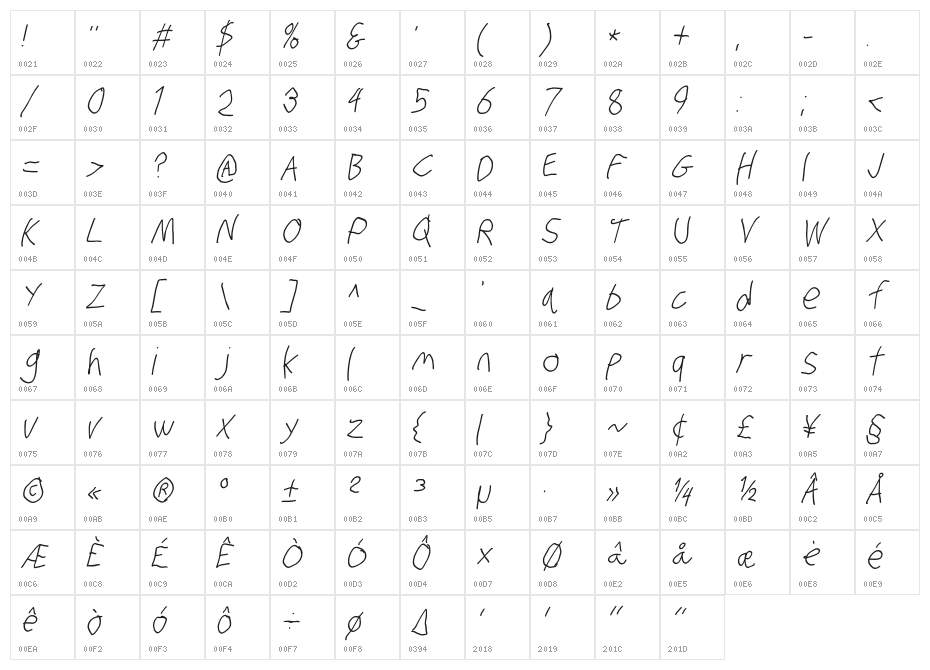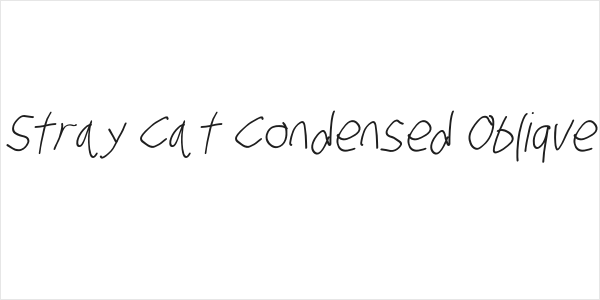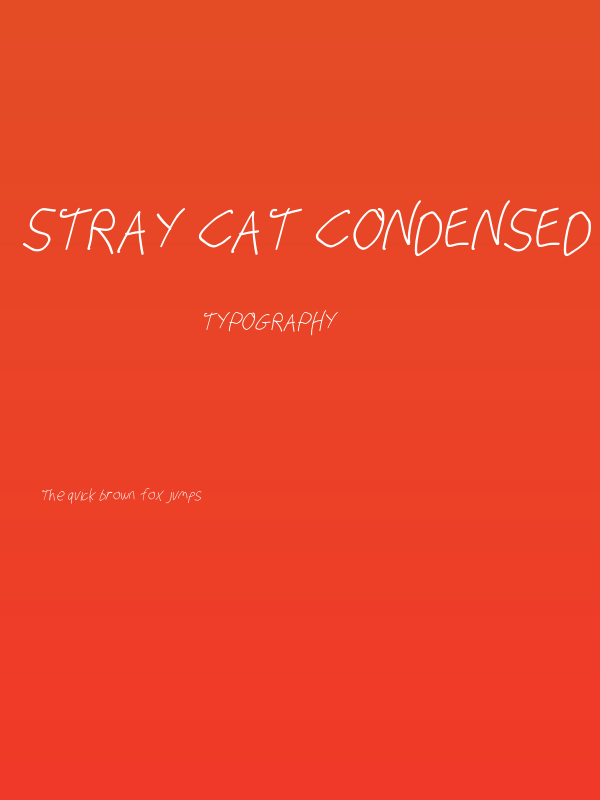
Stray Cat Condensed Oblique Font
Stray Cat Condensed Oblique Description
This font exhibits a playful and casual handwritten style, characterized by its oblique orientation and condensed letterforms. The strokes are uneven and organic, giving it a spontaneous and informal appearance. The characters are slightly slanted, enhancing the dynamic and lively feel of the font. The uppercase and lowercase letters maintain a consistent style, with a noticeable variation in stroke thickness that adds to its charm. The numerals and special characters follow the same whimsical design, making it suitable for projects that require a personal touch.